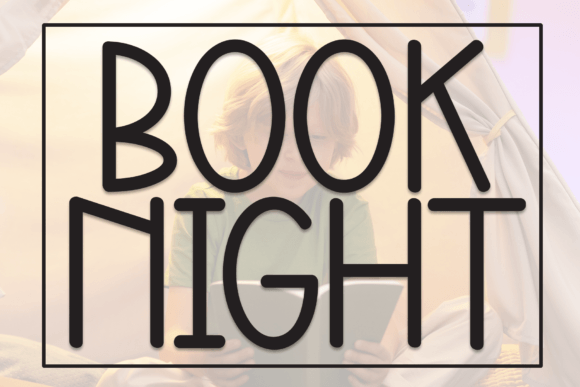
Discover the Charm of Book Night Font: A Playful, Handwritten Display Font
A Personal Review: What I Love About Book Night Font
Book Night Font is a charmingly playful, handwritten display font that radiates an endearing sweetness. Here are a few things I absolutely love about it:
• ✨ Friendly and approachable aesthetic: This font instantly adds a dash of whimsy to any design.
• ✅ Highly versatile: Perfect for wedding invitations, heartfelt cards, and any design that craves a sprinkle of fun.
• 💕 Emotionally resonant: It beautifully encapsulates the essence of handwritten charm and spirited joviality.
While Book Night Font is incredibly delightful, there are a few minor things to keep in mind:
• ⚠️ Limited use in very formal designs: The playful nature of this font might not suit very formal or corporate projects.
• 🤔 May require adjustment for longer texts: Its playful, handwritten style can be a bit challenging to read in large blocks of text.
Book Night Font was crafted with the intention of capturing the magic of handwritten notes and the joy of spirited conversation. The designer aimed to create a font that feels both personal and delightful, perfect for projects that require a touch of warmth and whimsy. The result is a font that not only looks charming but also feels endearing.
Font Name Book Night Font
Author Strongkeng Old
• Q: Is Book Night Font suitable for body text? A: While it’s primarily designed for display purposes, it can be used for short paragraphs. However, readability may vary for longer texts.
• Q: Does Book Night Font include OpenType features? A: Yes, it includes various OpenType features, glyphs, and stylistic alternates to enhance your designs.